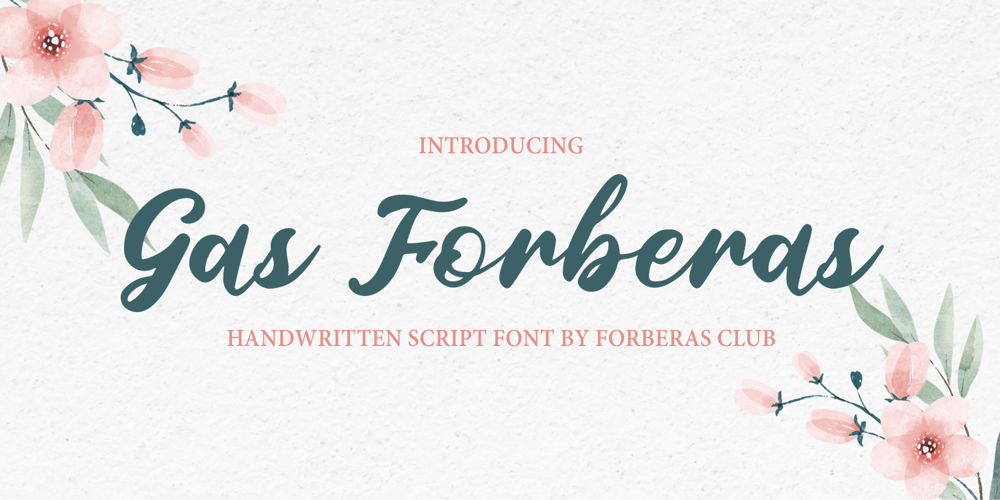
Gas Forberas
Gas Forberas font
Gas Forberas Font Family was designed by ANGGI HERMAWAN and published by Forberas Club. Gas Forberas contains 1 styles and family package options. Gas Forbes font create with passion and carefully. This lovable font can use to your design project especially for special and lovable moment.